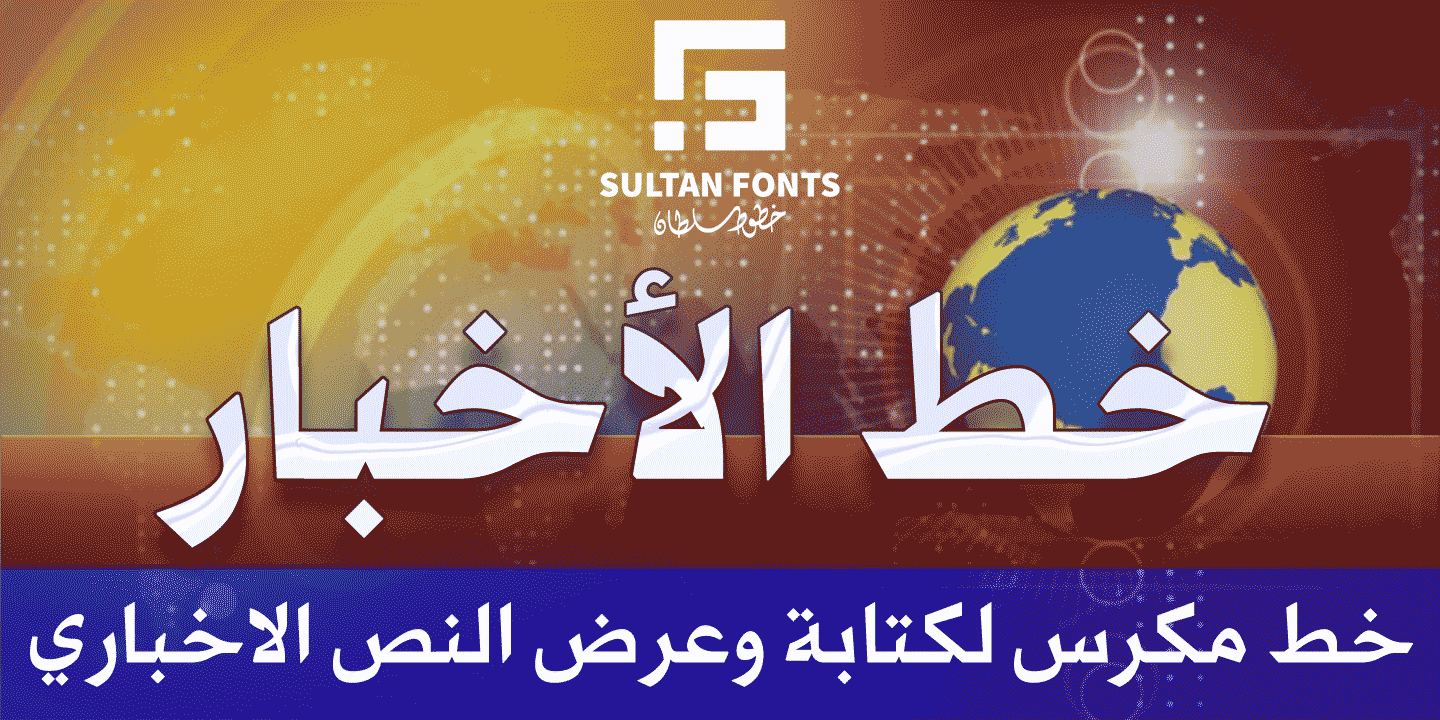
Need a clean, modern, and professional typeface that mimics the classic look of newspaper headlines and editorial design? SF News Font Free Download is the perfect choice for designers looking to achieve a balance between tradition and clarity. This font is ideal for websites, blogs, publications, news portals, and any design project that demands a trustworthy and polished appearance.
Whether you're creating a sleek editorial layout, a clean user interface, or a reliable corporate identity, SF News Font Free Download offers a sense of structure, intelligence, and approachability. Its subtle detailing and thoughtful spacing make it a versatile workhorse for serious design applications.